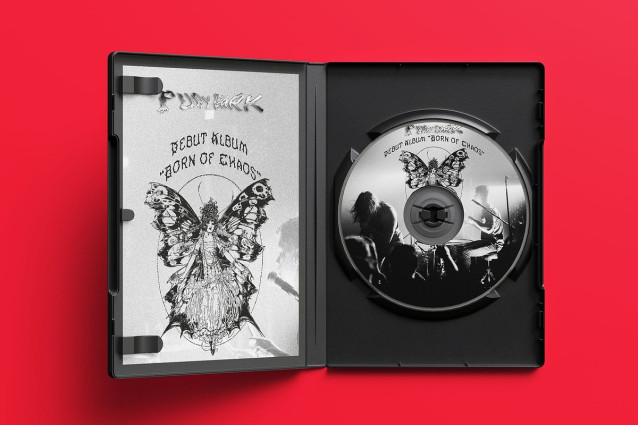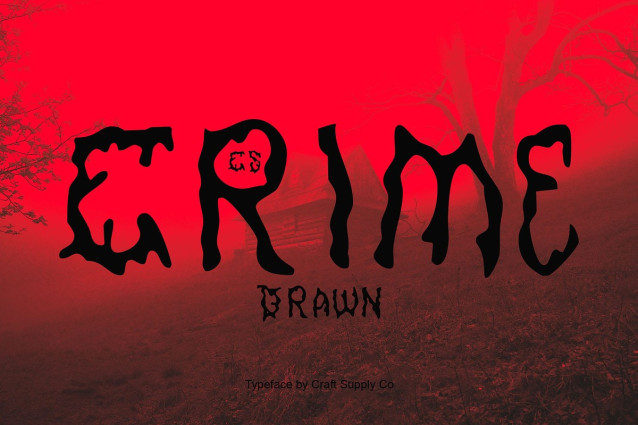
CS Crime Drawn Font
CS Crime Drawn Font is a black metal font designed to radiate pure aggression and raw intensity. With jagged spikes and chaotic strokes, it embodies the rebellious essence of extreme music culture. This is not a font for the faint of heart it’s built to make a loud, unapologetic statement.
Chaotic Hand-Drawn Texture The hand-drawn strokes give CS Crime Drawn an authentic, untamed personality. Each letter feels alive with chaotic energy, as though carved or scratched into existence. This texture enhances its dark and destructive feel, perfect for projects that demand raw artistry and a fearless aesthetic.
Perfect for Band Logos and Posters Whether you’re designing for a black metal band, underground festival, or edgy streetwear brand, CS Crime Drawn brings the perfect level of intensity. Its spiked, distorted forms capture the essence of heavy music culture, making it ideal for band logos, album covers, posters, and promotional graphics that thrive on shock value.
Capturing the Spirit of Extreme Music More than just a typeface, CS Crime Drawn is a visual embodiment of extreme sound and rebellion. It channels darkness, aggression, and chaos into bold letterforms that dominate the page. For designers looking to capture the uncompromising spirit of black metal and hardcore subcultures, this font delivers pure visual impact.